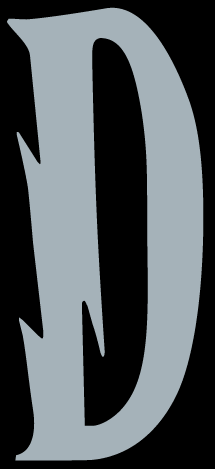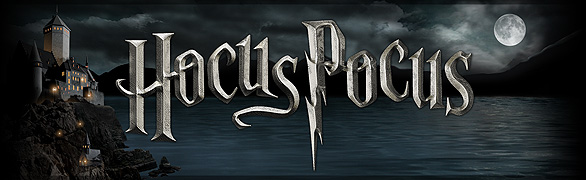
Harry Potter font - Hocus Pocus Comparison
Harry Potter font - Hocus Pocus by David Occhino Design
Copare Hocus Pocus to Other Typefaces
The information below demonstrates how HOCUS POCUS compares to other Harry Potter typefaces.
HOCUS POCUS
by David Occhino
Character Set* - 240 standard glyphs
HARRY POTTER
by Jenny Barck
Character Set* - 58 standard glyphs
ES POTTER
by High Logic
Character Set* - 90 standard glyphs
HARRY P
by Phoenix Phonts & GeM
Character Set* - 83 standard glyphs
Every capital comes in two designs.
Consistently styled letterforms.
Hocus Pocus has a full set of international characters.
Contains six: ÅåÖöÄä
(None)
Every letter in Hocus Pocus is formed with precisely tuned lines and curves.
All symbols are shaped in the correct style.
(None)
Symbols from other typefaces are used.
Carefully crafted "old style" numerals.
(None)
Balanced, eye-pleasing shapes.
Capitals are professionally designed to work well in any combination.
Dozens of alternate characters afford a variety of combinations.
(None)
CHARACTER SET
*The character set used for this example is the Mac OS Roman set, which inlcudes 256 characters. Any glyphs that are not an expected part of this character set are not included in the count. This would includes any logos, icons or artwork that are not standard glyphs.